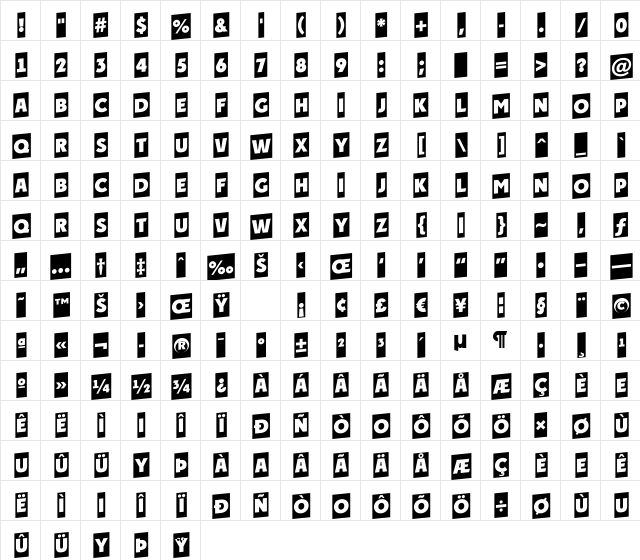
a_PlakatCmUp Regular
Designer: W.Chufarofsky & M.Slutsker
Design Context for a_PlakatCmUp
a_PlakatCmUp is a composed and adaptable typeface that performs quietly and consistently across a wide range of design contexts.
Pro Tip: Use a_PlakatCmUp in both headline and body roles to test its range before committing to a single application.